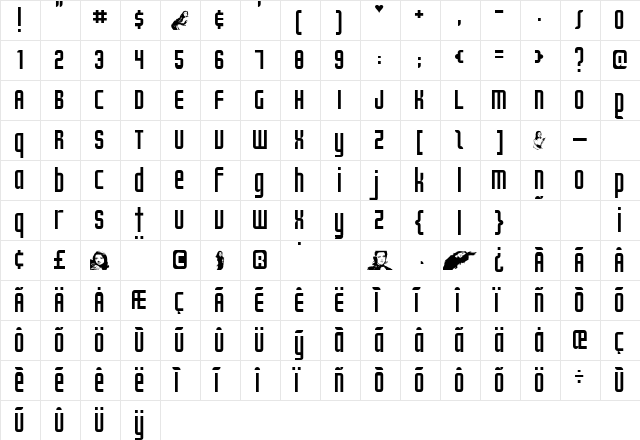
Emma 65
Emma offers clean, dependable letterforms without strong stylistic allegiance, making it a practical choice for designers who need flexibility.